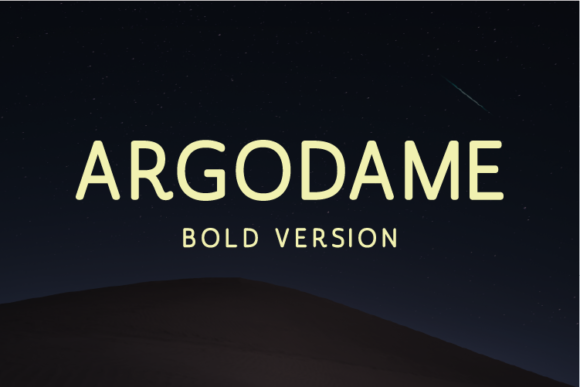
Argodame Bold Font
Be captivated by the Argodame Bold Font, a masterpiece crafted by Nan Design. With its captivating curves and soft terminals, this rounded sans serif font exudes a friendly and expressive charm. Argodame's stunning personality is a perfect fit for headlines, logotypes, branding, books, magazines, motion graphics, and beyond.
Journey into a world of modern elegance and timeless sophistication with Argodame. Experience the allure of its carefully crafted characters, each stroke imbued with precision and artistic flair. Indulge in the versatility of Argodame, a font that transitions effortlessly from playful and energetic to sleek and refined.
Unleash your creativity and let Argodame be your muse. Its inviting and approachable nature makes it a joy to work with. Whether you're designing a vibrant logo, crafting an engaging website, or creating captivating marketing materials, Argodame will elevate your work to new heights.
Embrace Argodame Bold Font and embark on a typographic adventure where your imagination is the limit. Let its alluring curves and expressive character dance across your designs, captivating your audience and leaving an unforgettable impression. Its modern and contemporary style, paired with classic proportions, ensures that Argodame will remain a timeless treasure in your font collection.